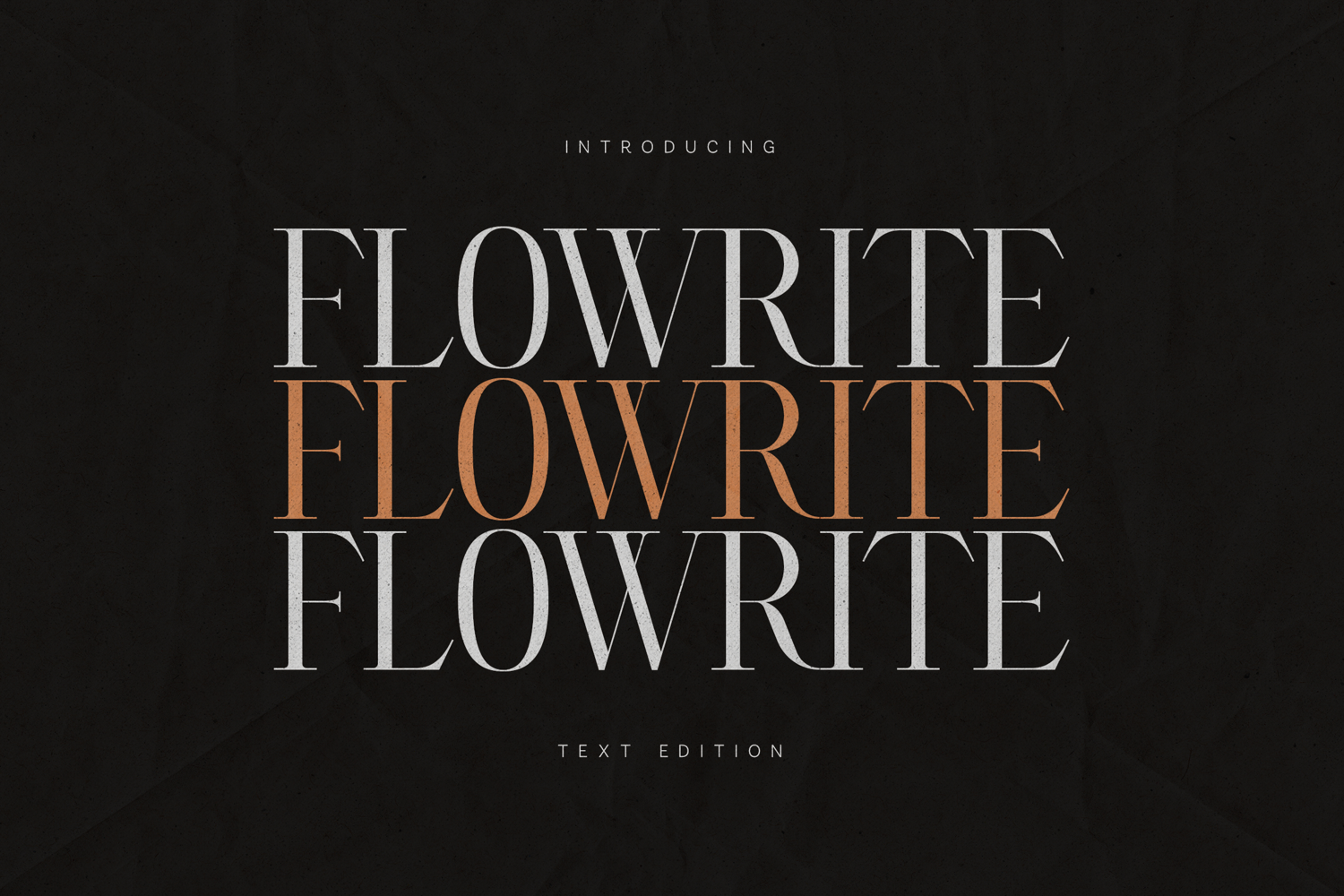
Flowrite is a refined modern serif designed for elevated branding and sophisticated editorial design.
With graceful contrast, sharp detailing, and timeless proportions, Flowrite delivers elegance without excess. Its balanced structure makes it suitable for both striking headlines and refined text compositions.
The extensive multilingual support ensures seamless global use across branding systems and high-end creative projects.
• Fashion branding
• Beauty & fragrance packaging
• Editorial magazines
• Luxury logos
• Wedding & stationery design
• Premium product identities
• Numerals
• Extended Latin multilingual support
• Full punctuation & symbols
• Clean kerning